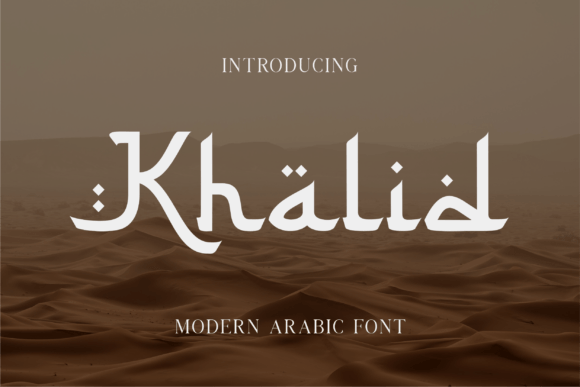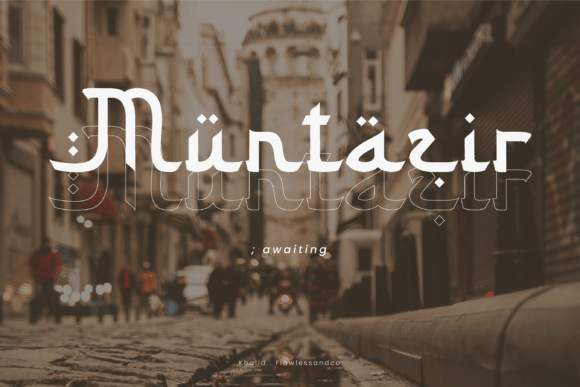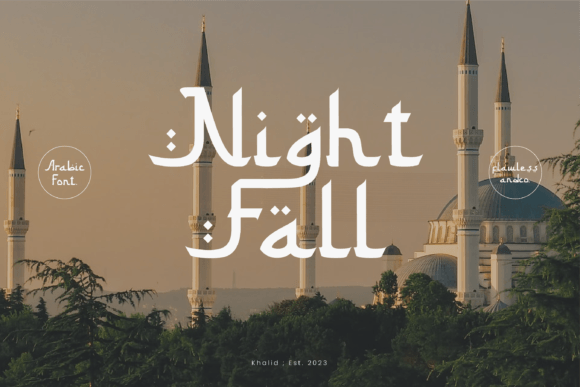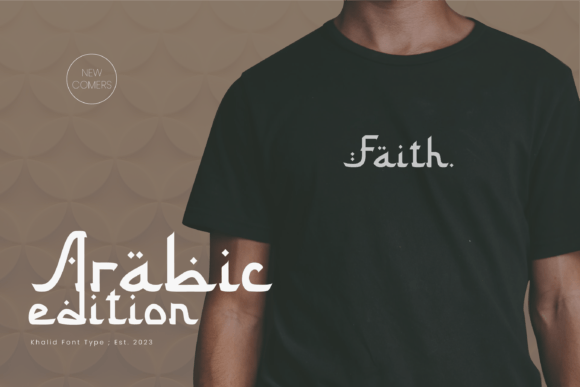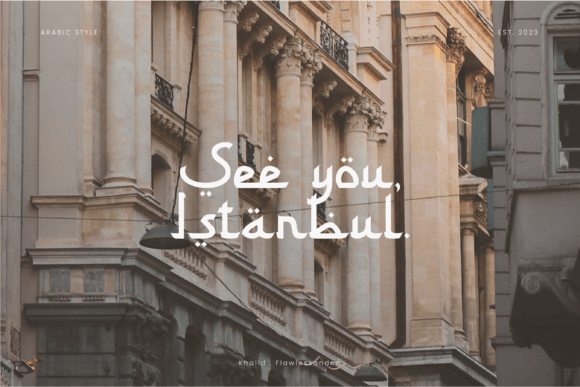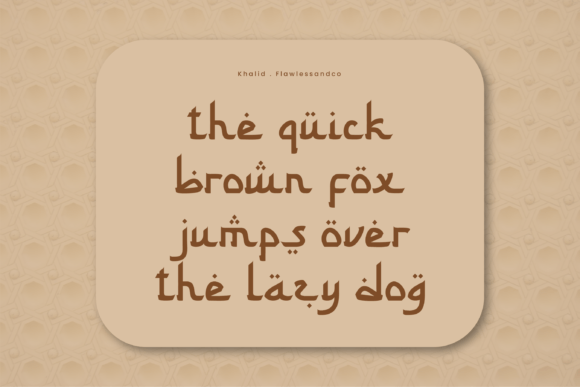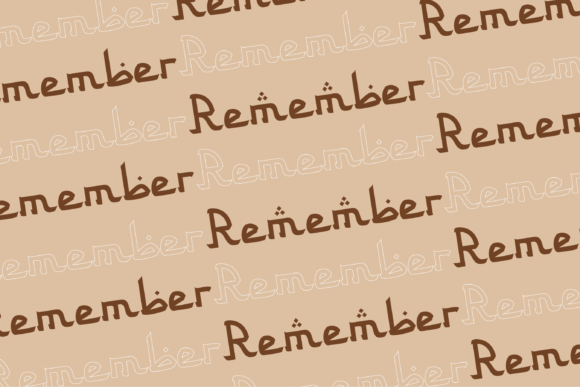
The Perfect Blend of Tradition and Innovation
As a designer, there’s nothing quite like the thrill of bringing a new project to life. You’ve got a blank slate, a vision, and a font – the foundation upon which your entire design is built. But what happens when that font just doesn’t quite fit the bill? This is where the Khalid Font comes in – a modern Arabic font that seamlessly combines traditional elements with a fresh, contemporary aesthetic.
Whether you’re working on a digital campaign or a print project, Khalid Font is the perfect solution. Its unique alternates and ligatures offer a level of customization that sets it apart from other Arabic fonts, allowing you to create truly eye-catching designs that capture your audience’s attention. For designers looking to add a touch of sophistication and authenticity to their work, the Khalid Font is an invaluable tool.
Khalid Font Key Features
- Font Family: Khalid Font is a unique, Arabic calligraphy font designed for professional use.
- Character Count: The font includes a vast character set, covering a wide range of Arabic, Latin, and other languages, with over 1000 glyphs.
- Unique Characteristics: The font features intricate, hand-drawn designs and subtle nuances, making it perfect for creating visually stunning and elegant Arabic typography.
Khalid Font Review
First off, I want to say that the Khalid Font has some amazing features that make it stand out. ✨ One of the things that caught my attention was its sleek, modern design. It’s perfect for creating a contemporary look for your brand or website. ✨ The font is also highly legible, making it easy to read even at smaller font sizes. ✨ Another great thing about this font is its versatility – it can be used for both body text and headings.
- Highly legible
- Sleek, modern design
- Versatile (can be used for body text and headings)
However, there are some limitations to consider. ⚠️ The font can be a bit too bold for some tastes, which may make it difficult to pair with certain color schemes. ⚠️ Additionally, the font may not be suitable for very long blocks of text, as it can start to feel overwhelming. ⚠️ Finally, some users may find the font to be a bit too minimalist, which can make it difficult to convey a strong brand message.
Overall, I think the Khalid Font is a solid choice for anyone looking for a modern, stylish font. While it may not be perfect for every project, it’s definitely worth considering. With a bit of creative pairing and usage, I think this font has the potential to really make your design stand out.
The Khalid font is ideal for:
- Creating eye-catching titles and headings.
- Designing custom typography for branding and marketing materials.
- Adding a touch of elegance to presentations and documents.